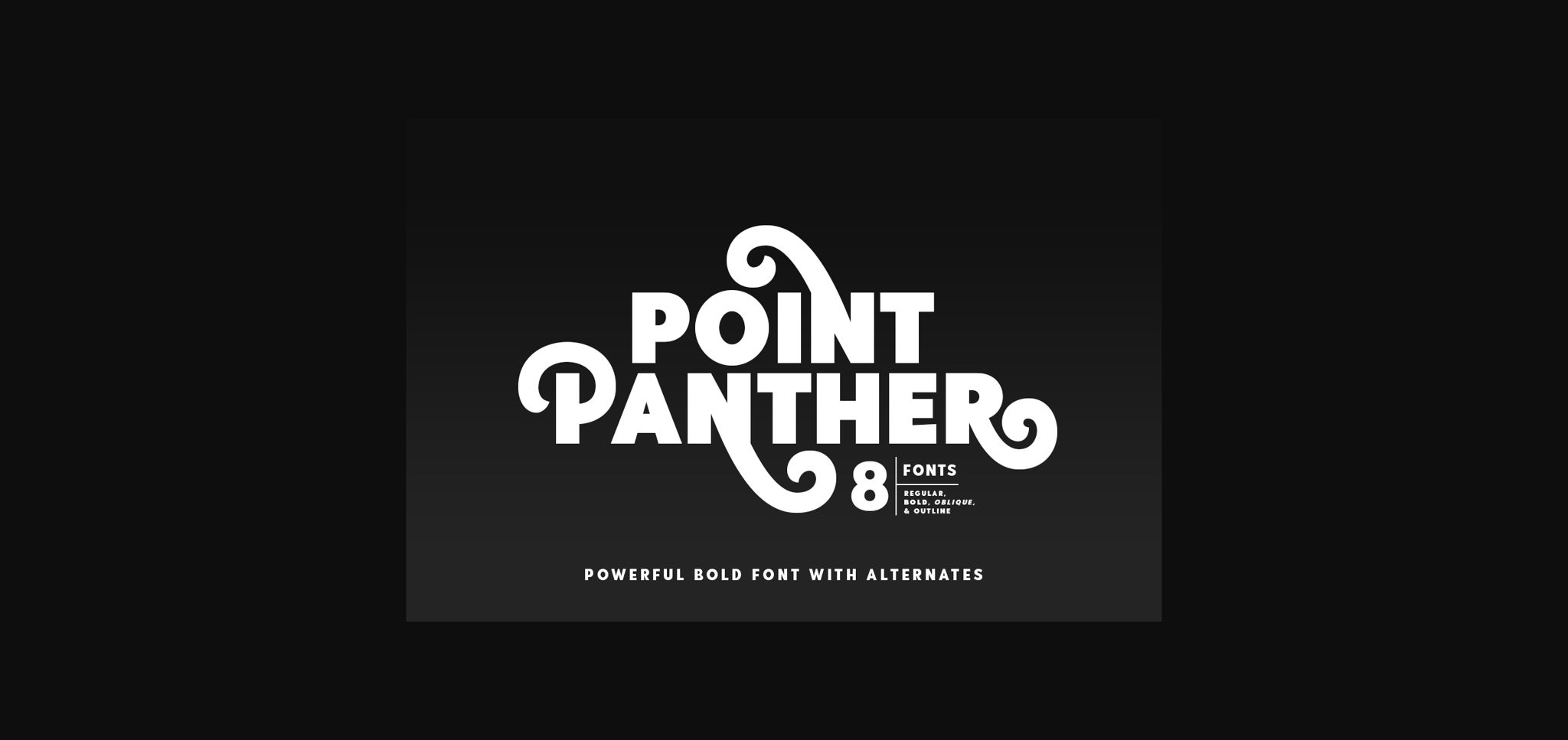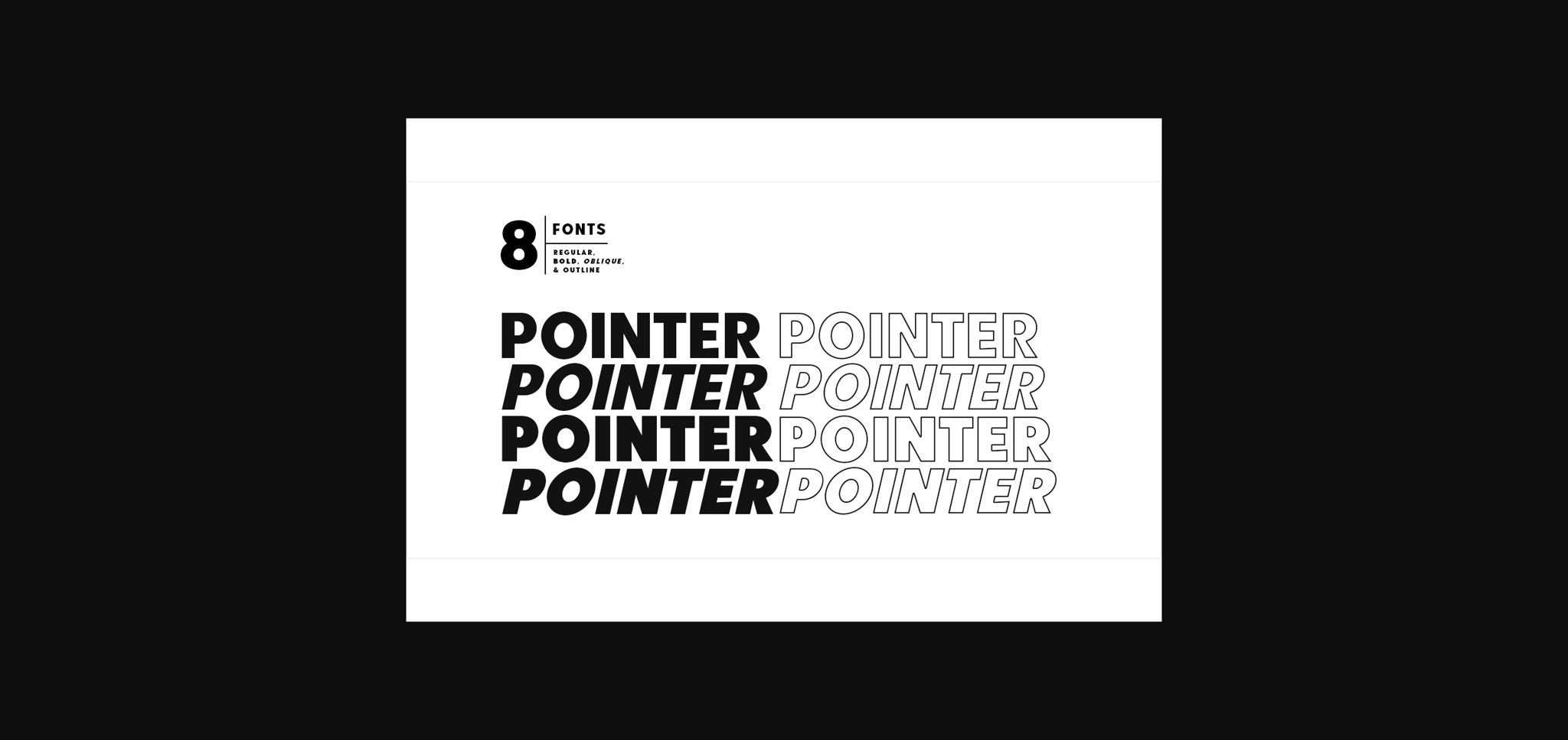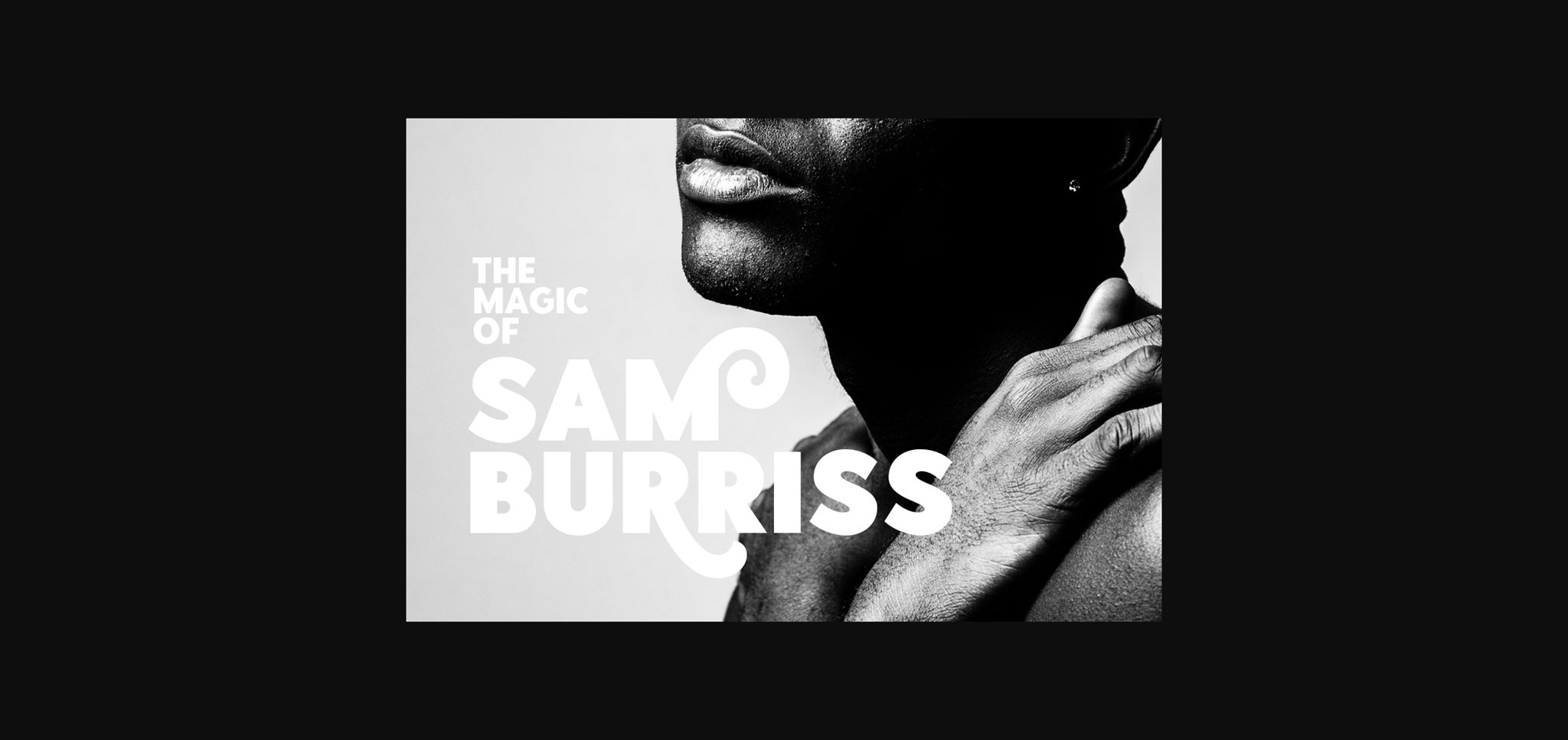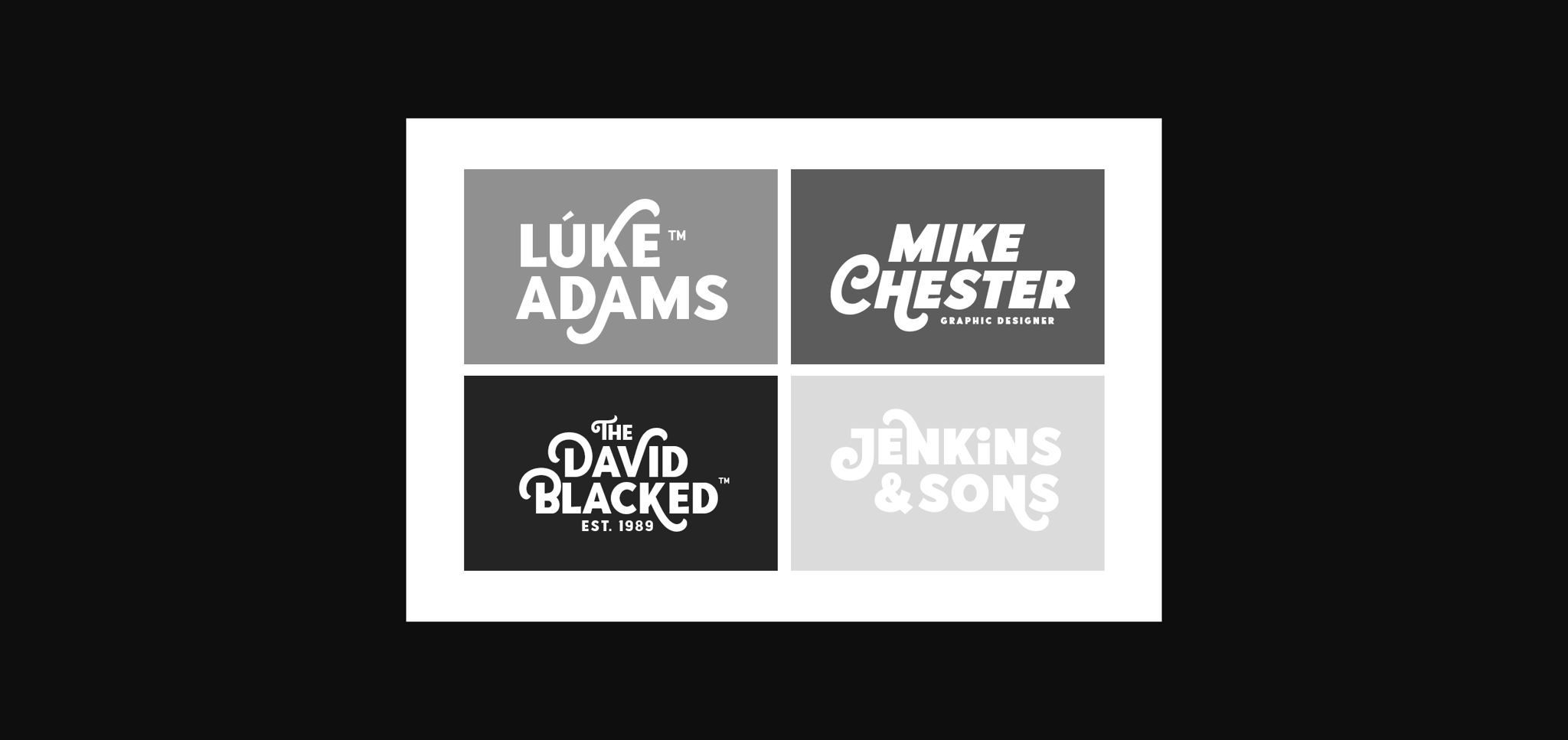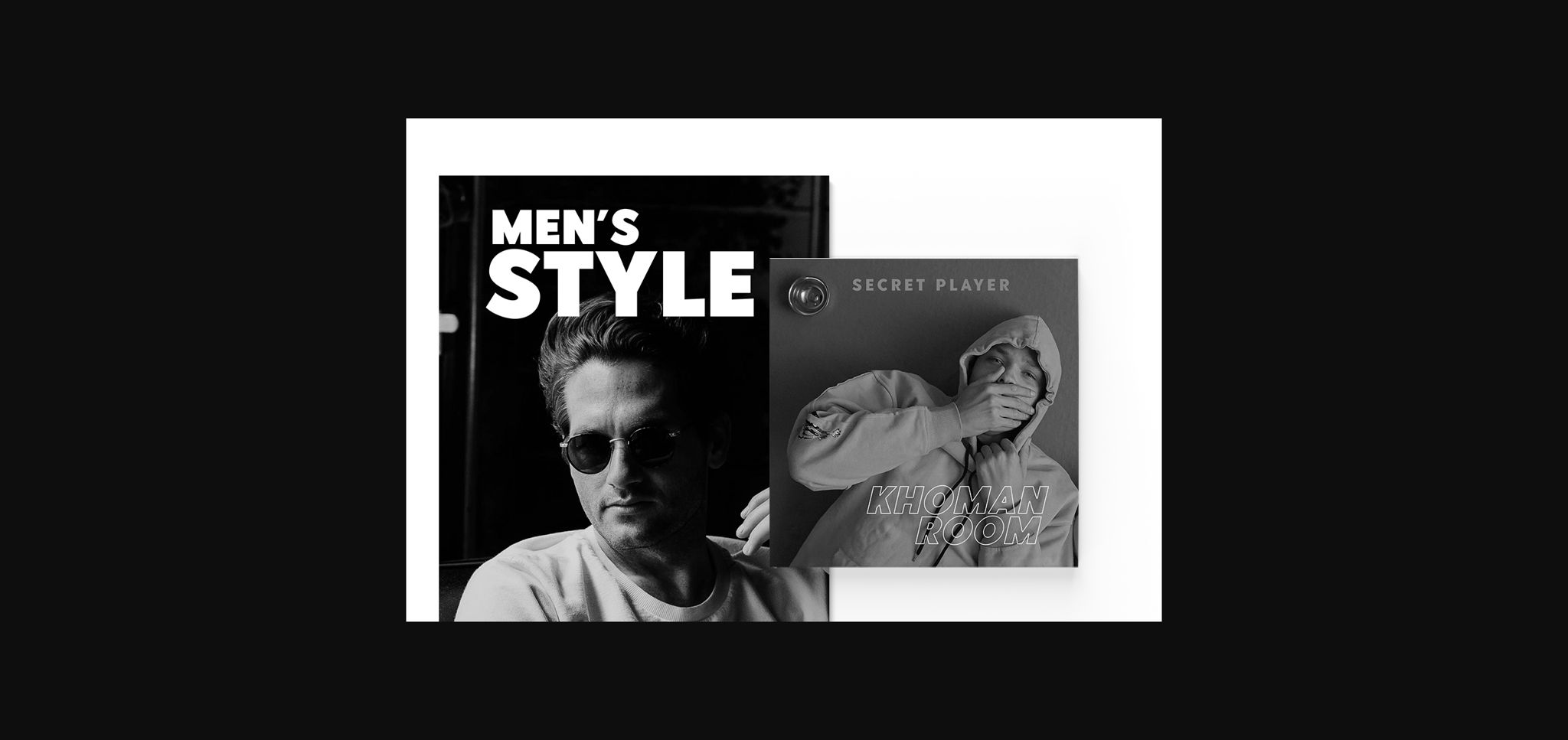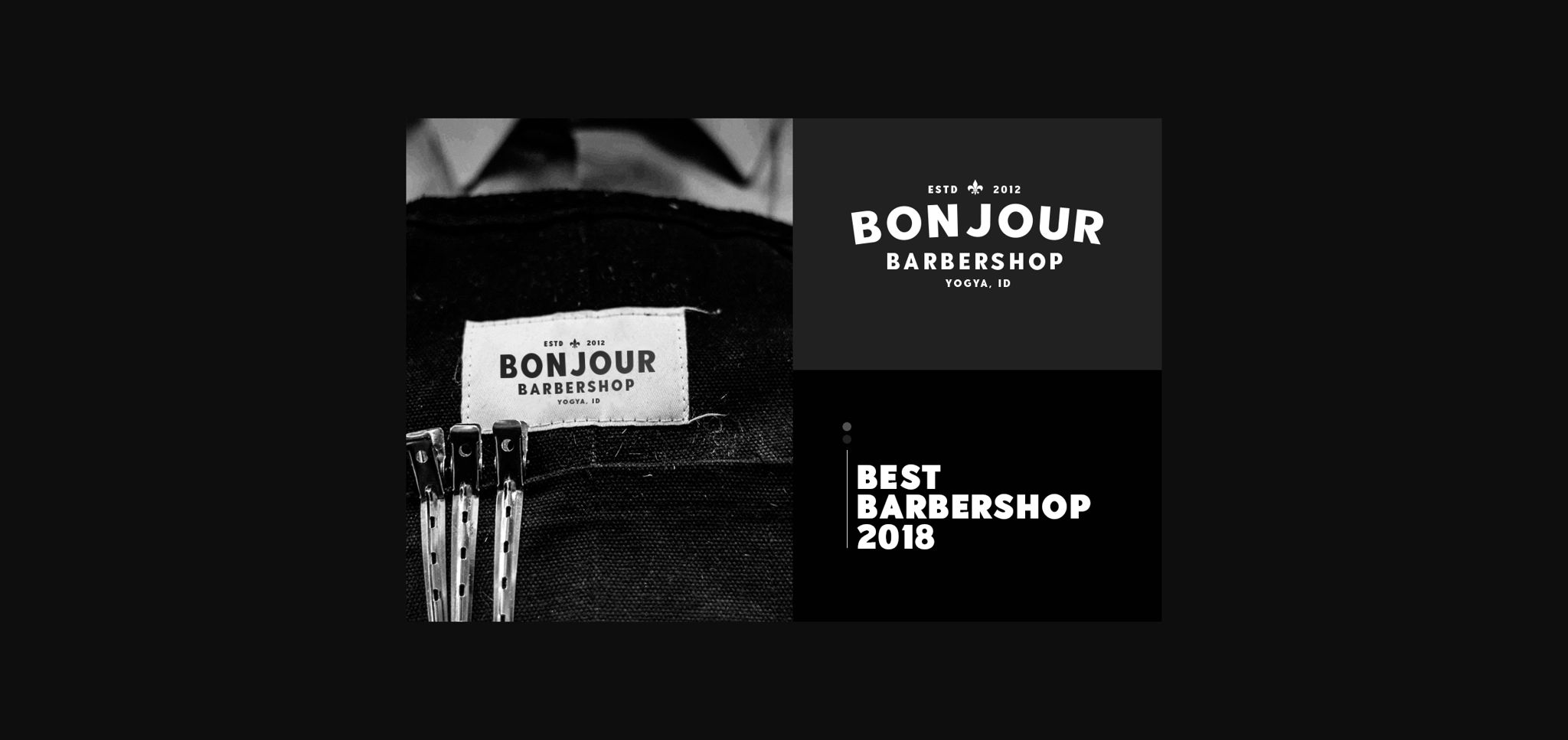
Point Panther Font
About Point Panther Font
Point Panther is a unique sans serif font. It comes in 8 amazing styles that you can combine to get an even better look in your designs!